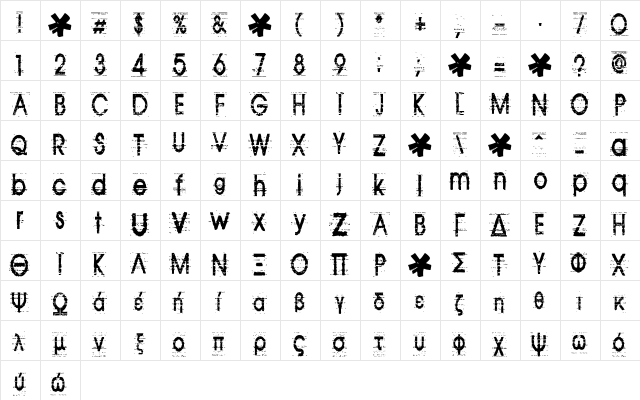
Tom Violence (AUTOSPACED)
Design Context for Tom Violence Typeface
Tom Violence is a composed and adaptable typeface that performs quietly and consistently across a wide range of design contexts.